The Best New Money Serif Font 2023
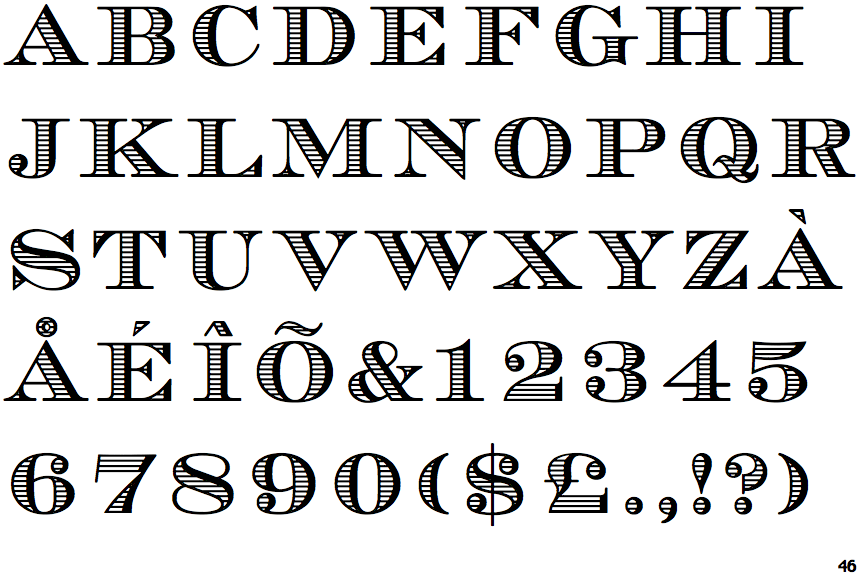
Web Looking For Serif Money Fonts?
This font is about the illusion of wealth. Web and here are the alternatives to courier, garamond and times new roman. Bilment is a modern and classic serif font has own unique style & modern look.
This Font Comes In 4 Different Styles And It Includes Uppercase And Lowercase Characters With Ligatures And Alternates.
A Serif Font Is A Font With Small Strokes Or Extensions At The End Of Its Longer Strokes.
Note the circled areas in each. Serifs have their roots in ancient roman square capitals, and became widely. Web currency symbols, among the other signs, comprise the exquisite hallmark of this font.